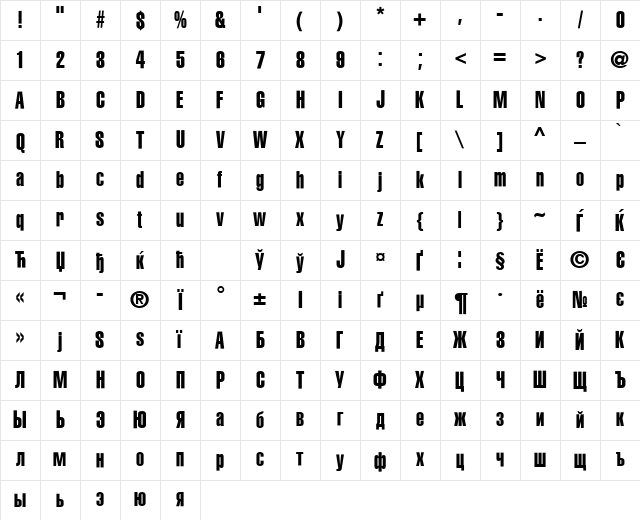
HeliosExtraCompressed Regular
Design Context for HeliosExtraCompressed
HeliosExtraCompressed is a composed and adaptable typeface that performs quietly and consistently across a wide range of design contexts.